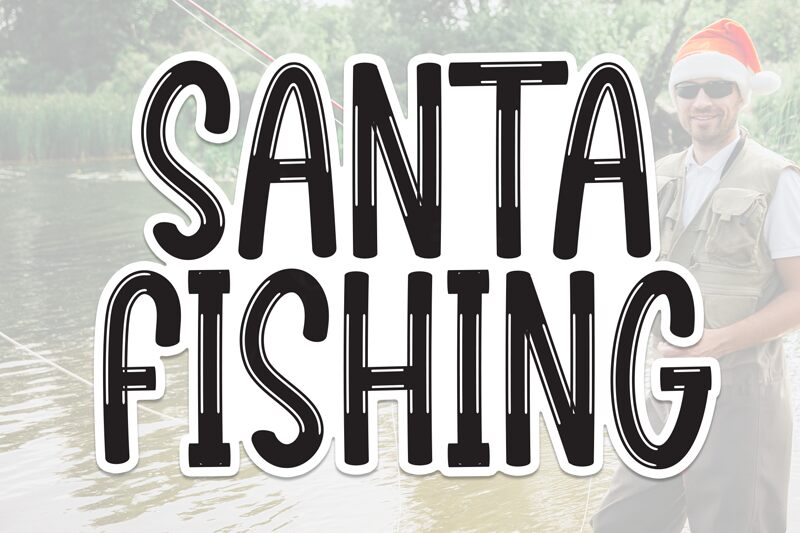
Santa Fishing
Santa Fishing font by Scratchones is a condensed display font that captures a grungy, handcrafted aesthetic. With its distressed texture and vintage-inspired vibe, this typeface exudes a rustic appearance perfect for projects requiring an organic touch. Its style seamlessly blends the charm of old-school typography with contemporary design sensibilities.
Santa Fishing's free display typeface can be used to enhance poster designs, apparel prints, business cards, invitations, stamps, magazines, ads, branding projects and stationery together with any other graphic design needs. Other avid users may get creative and take it even further by creating stunning logos or usability-oriented apps and websites.